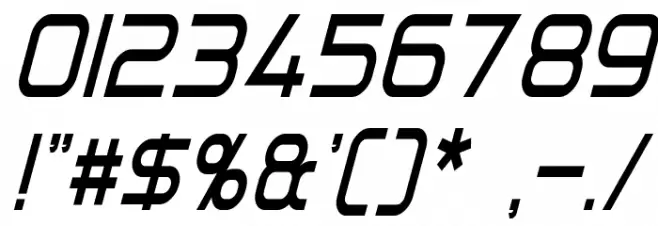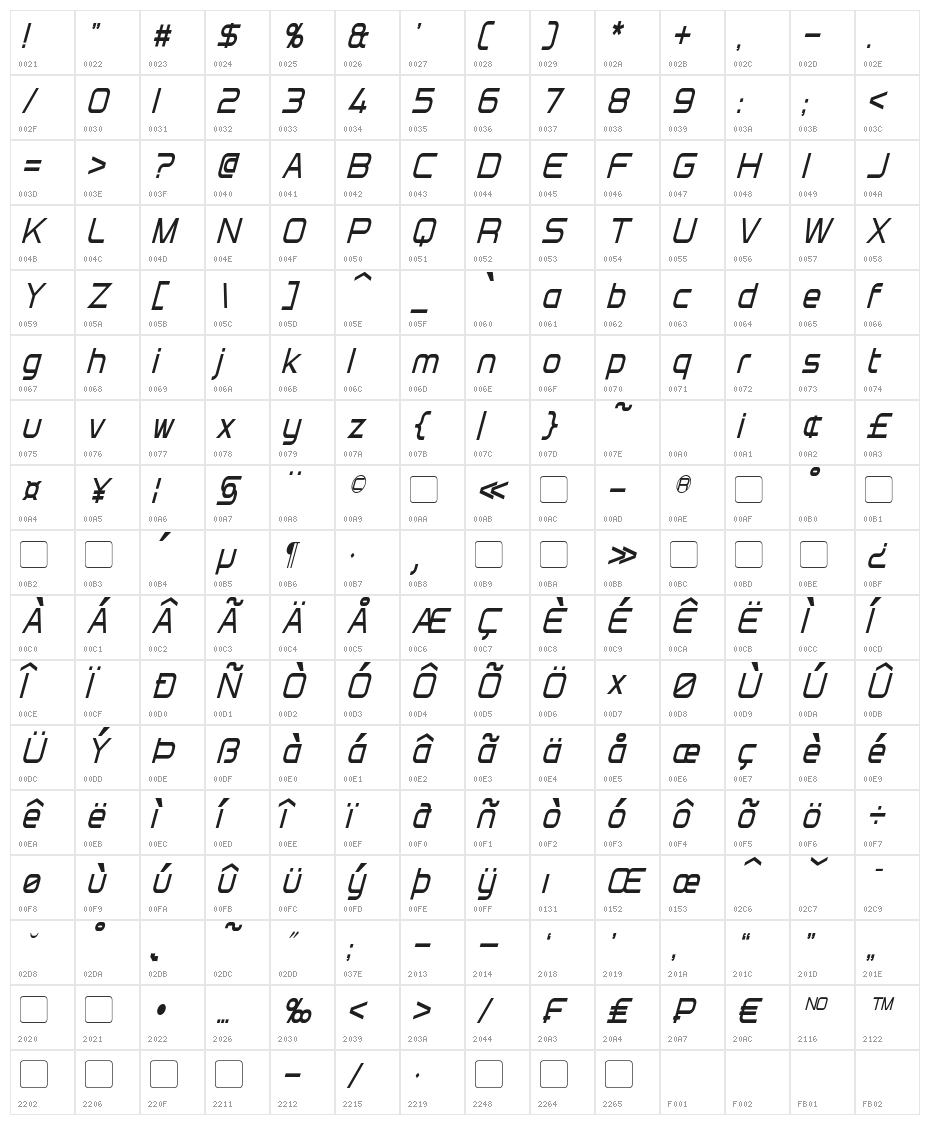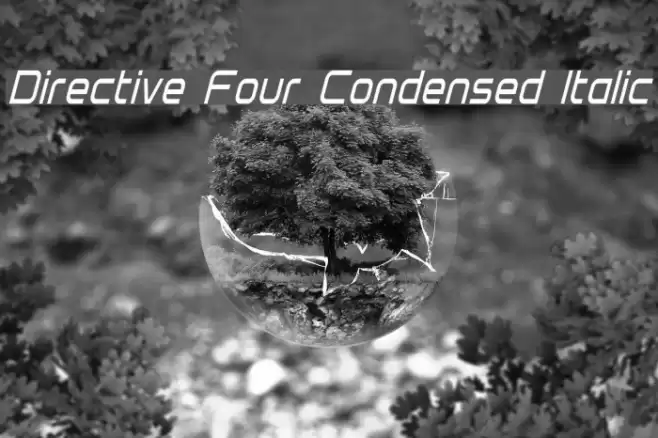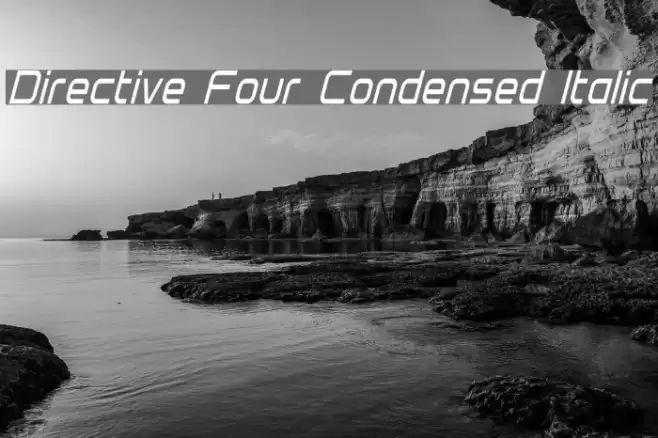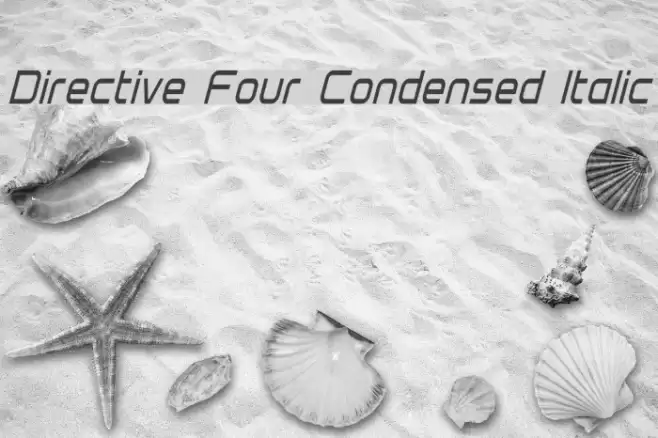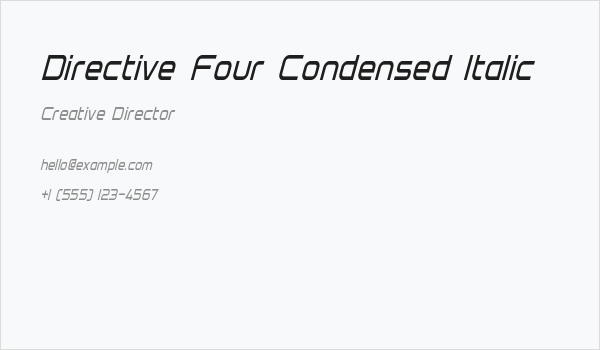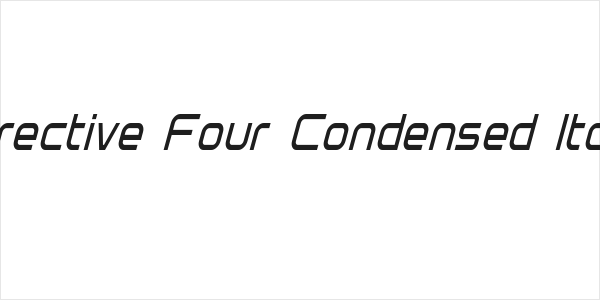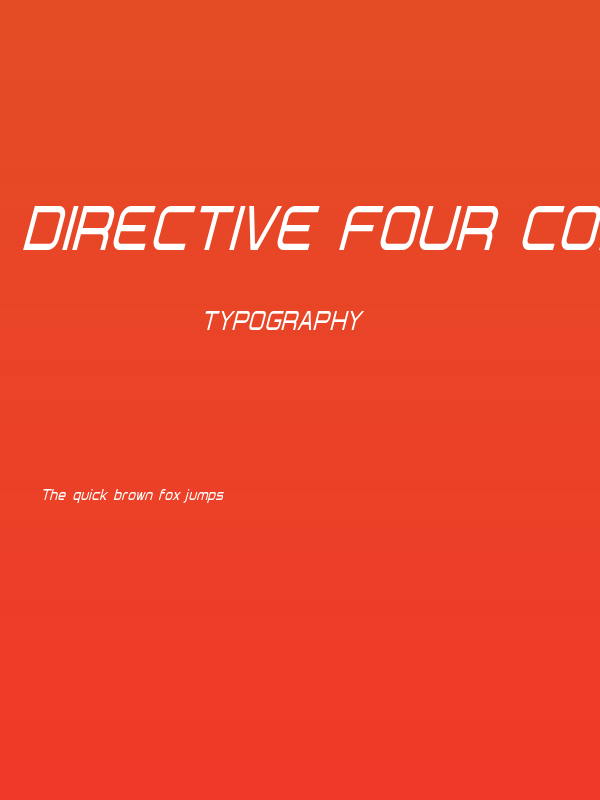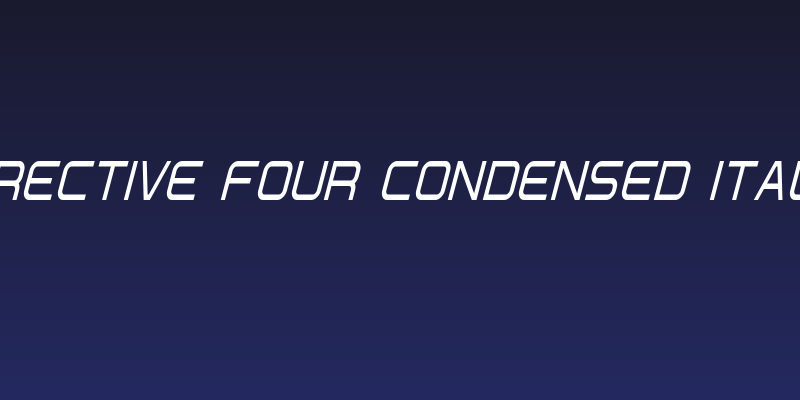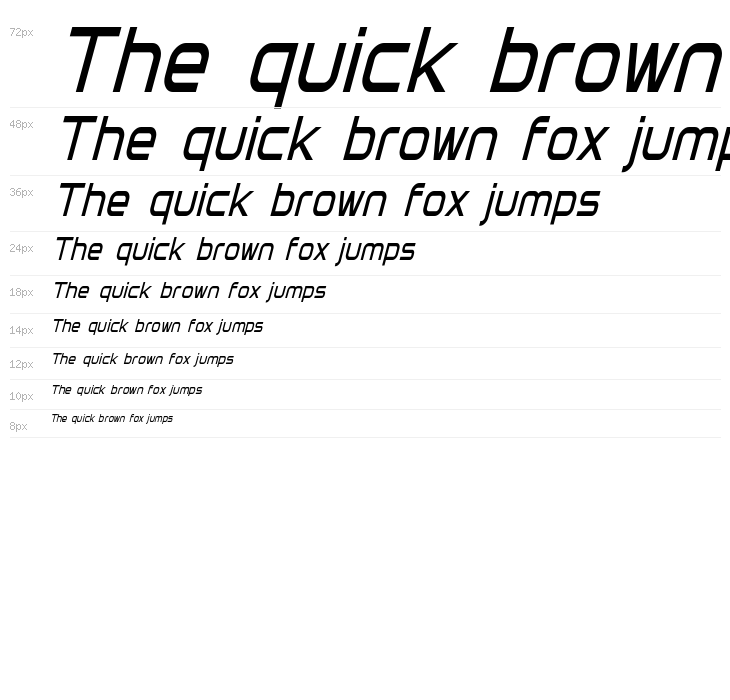
Directive Four Condensed Italic Font
Directive Four Condensed Italic Description
This font features a sleek, modern design with a condensed and italicized style. The characters are slightly slanted, giving a dynamic and forward-moving appearance. The strokes are consistent in width, providing a clean and uniform look. The uppercase letters are tall and narrow, while the lowercase letters maintain a similar proportion, ensuring readability. The numerals are distinct and align well with the overall aesthetic. Special characters are well-integrated, maintaining the font's cohesive style. This font is ideal for projects that require a contemporary and professional touch.
| Use Case | Headlines, Logos, Digital Media |
| Proposed Projects | Ideal for branding, advertising, and digital media projects that require a modern and professional appearance. |